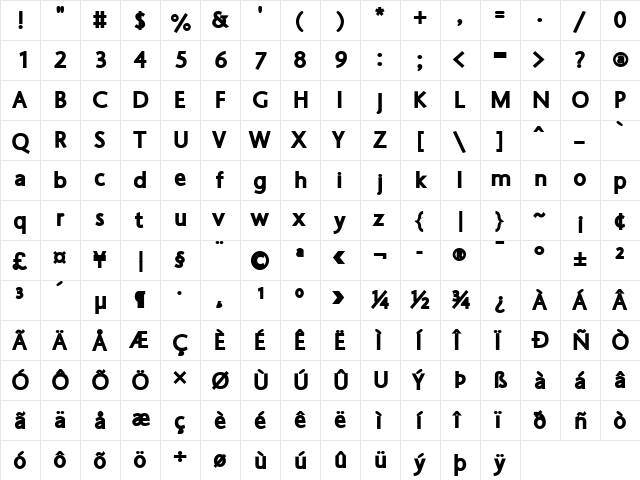
OskiEast Bold
Design Context for OskiEast Typeface
OskiEast takes a measured approach to typography — its balanced proportions and neutral character make it a reliable workhorse for both digital and print work. The heavy weight commands attention and anchors typographic hierarchies.
Pro Tip: Pair OskiEast with a font of contrasting weight or personality to build a more expressive typographic hierarchy.